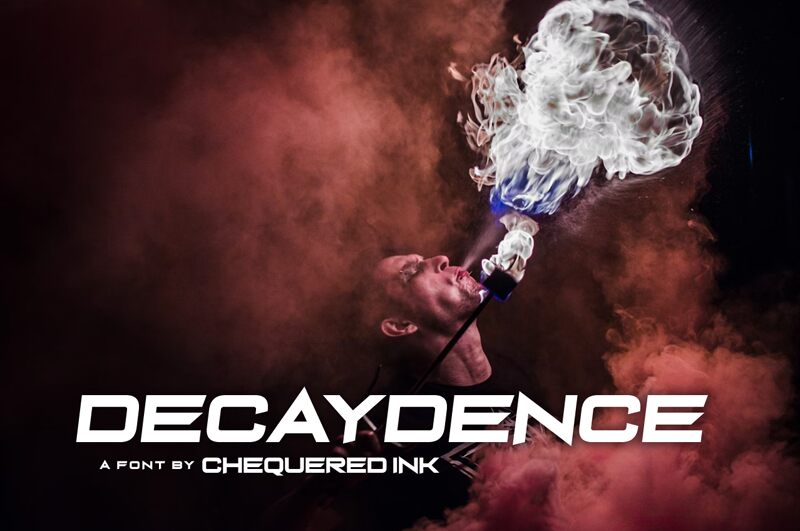
Decaydence Straight
Decaydence Straight font, from the Decaydence family by Chequered Ink, embodies a striking blend of modern and gothic aesthetics. Its bold and expanded letterforms command attention, making it an ideal choice for impactful headlines and eye-catching designs. The font features clean lines and a distinctive style that exudes both elegance and contemporary flair.
Perfect for branding, posters, or digital media, Decaydence Straight font transforms ordinary content into visually engaging statements. Its unique look ensures versatility across various design contexts where boldness is key.